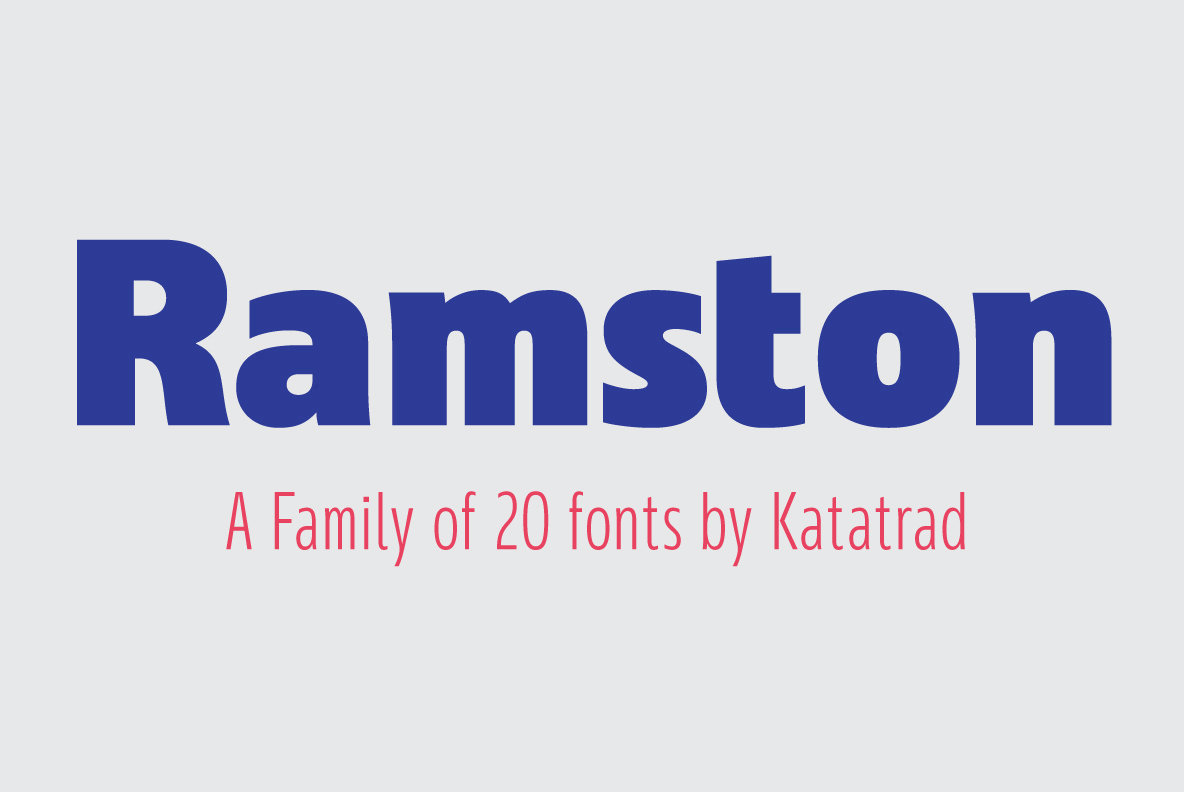
Ramston Font
Ramston Font is perfect for distinguished professional branding, established corporate identities, traditional business communications, prestigious law firm materials, heritage financial institutions, formal academic publications, authoritative government documents, and distinguished advertising campaigns. This dignified typeface works exceptionally well in both digital applications and print media where professional authority and institutional credibility are fundamental design requirements.
What makes Ramston Font so exciting is its masterful interpretation of institutional gravitas and professional distinction through refined letterforms that embody the same established credibility and unwavering reliability that defines the most respected professional organizations and distinguished institutions. The font features authoritative characters with institutional proportions, professional curves, and distinguished details that communicate competence, trustworthiness, and the proven track record of excellence that clients expect from established professional services. Its dignified personality and institutional heritage make it ideal for professional practices seeking to reinforce their authoritative reputation while appealing to discerning clients who value experience, competence, and the assurance of working with proven experts.
The Ramston Font family includes comprehensive weight variations from regular to bold, along with matching italic styles and professional alternates. Each style maintains the typeface's distinguished character while offering extensive multilingual support, professional numerals, formal punctuation marks, and special characters designed to enhance institutional communications and established branding efforts across global professional markets.
This extraordinary typeface represents the perfect convergence of professional tradition and contemporary business functionality for established service industries. Whether you're developing distinguished law firm identities, creating institutional financial materials, or designing prestigious academic communications, Ramston Font Free Download delivers the professional authority and versatility needed to establish trust with sophisticated clientele. The font's institutional appeal makes it particularly effective for law practices, financial institutions, consulting firms, and established organizations emphasizing decades of professional excellence and institutional credibility.
The meticulously crafted professional construction and optimized institutional performance in Ramston Font ensure maximum authoritative impact while maintaining clear communication across all professional applications. Its distinguished presence makes it ideal for institutional branding, professional marketing materials, and authoritative communications where its full professional character can create lasting confidence and establish immediate association with expertise, reliability, and the proven excellence that defines truly distinguished professional institutions.